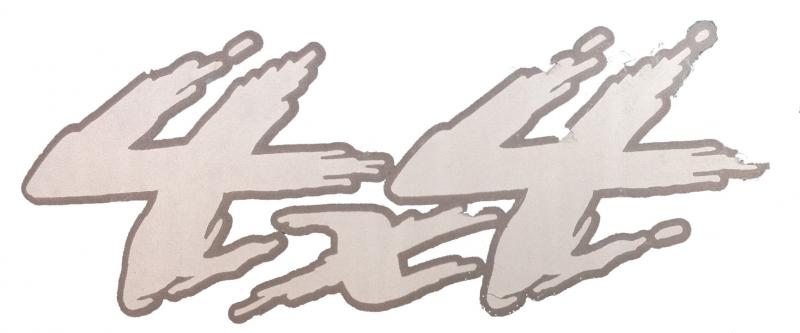
Anyone no this font?
Thanks Fred. I did not even pay attention to that because the one on the right was messed up anyway and only looked at the left one. Would you know a similar font style? I don't know what type of font you would call that to begin searching for it. Brush maybe?
Unless you need new characters, I agree that tracing what you have is probably the best route to take. I recommend the Vector Doctor if you prefer to outsource vector tracing needs. One similar font that comes to mind is Xtreme Script from Signfonts.com if you need something with that ragged look.